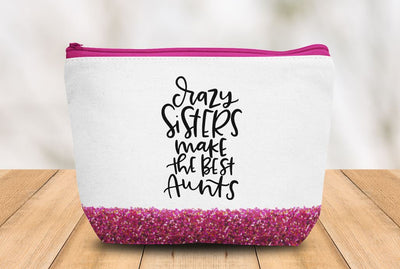
Aunt SVG | Crazy Sisters Make the Best Aunts | Aunt Gift
Crazy sisters make the best aunts! Yes, this aunt SVG design is the perfect SVG files for tshirt gifts for a new aunt in your family. I'm a crazy sister and aunt and I love it.
You're receiving the phrase: Crazy Sisters Make the Best Aunts (this is not a font, this is hand lettering). I'm sharing previews as examples of how you can use this really adorable design over and over again for your home business or personal use. Thanks for your support! No physical product is given to you. You are downloading the digital files to create your own gifts or products using the design file.